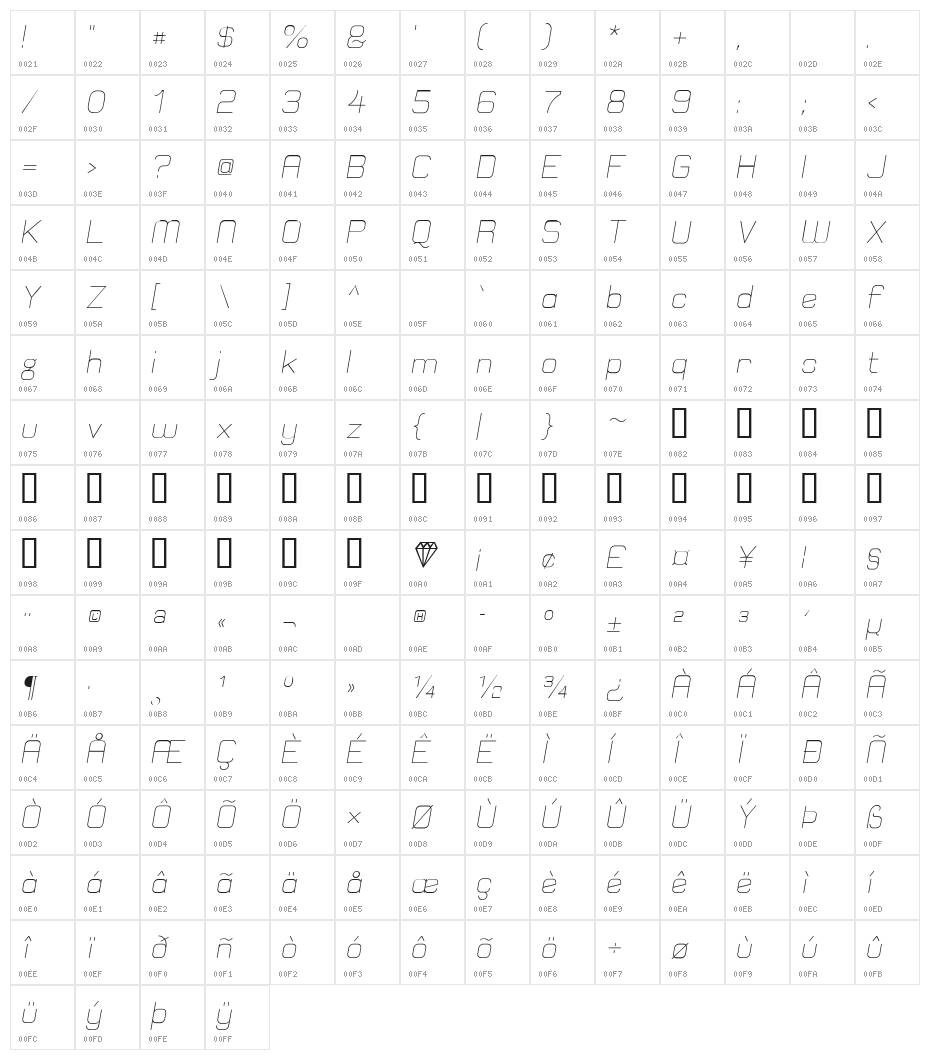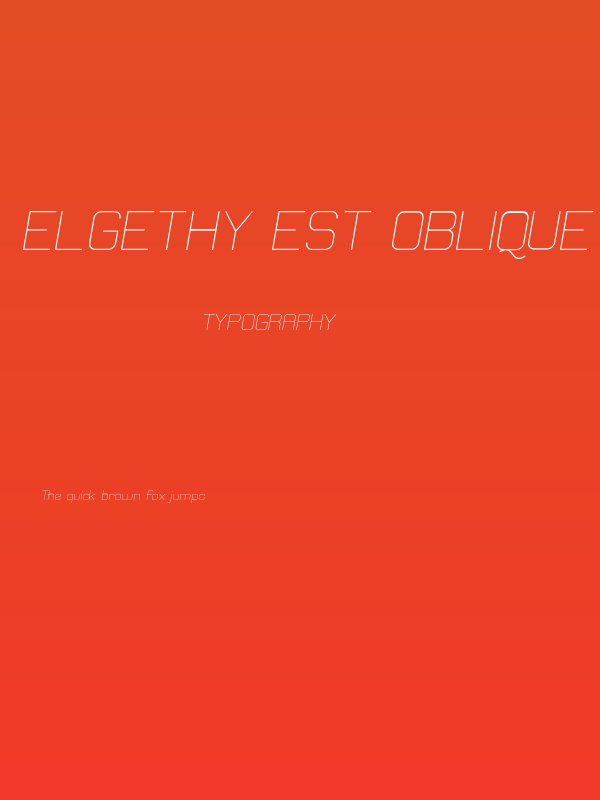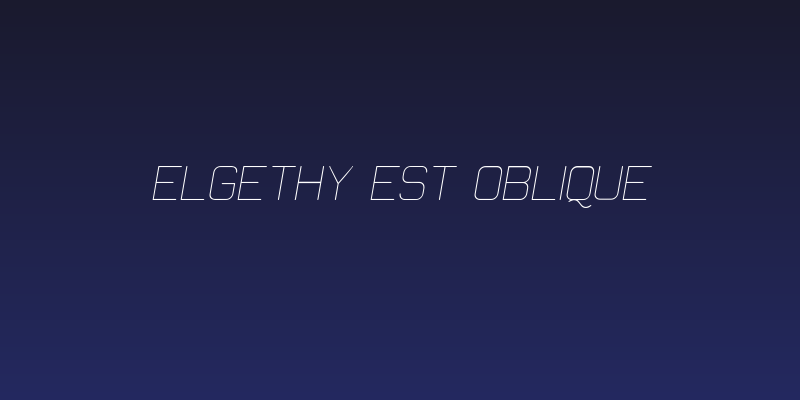
Elgethy Est Oblique Font
Elgethy Est Oblique Description
This font features a sleek, modern design with an oblique orientation, giving it a dynamic and forward-leaning appearance. The characters are constructed with thin, consistent strokes, creating a clean and minimalist aesthetic. The uppercase and lowercase letters maintain a uniform height, contributing to a streamlined look. The numerals and special characters are designed with the same thin lines, ensuring a cohesive style throughout. The font's geometric shapes and open counters enhance its readability, making it suitable for various design applications.
| Use Case | Headlines, Logos, Digital interfaces |
| Proposed Projects | Ideal for tech branding, modern advertising, sleek packaging designs, and contemporary digital interfaces. |